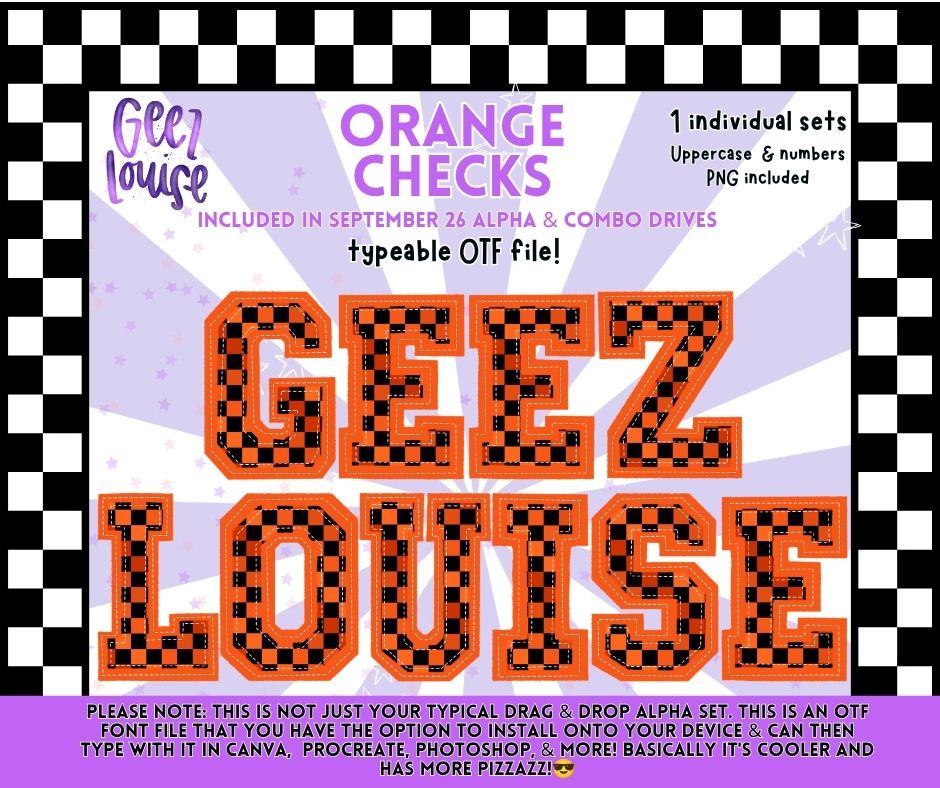
Orange Checks OTF Alpha | Orange & Black Checkered Varsity Font | Uppercase Letters & Numbers
Orange + black checks bring ALL the team-spirit energy. 🧡🖤🏁
Orange Checks is a bold varsity-style alpha featuring an orange and black checkered fill, layered orange detailing, and stitched-style accents. Best part? This isn’t just a traditional drag-and-drop alpha. You also get a typeable OTF font!
✨ Uppercase letters A–Z
✨ Numbers 0–9